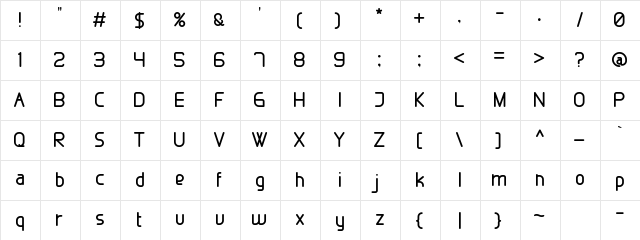
Marlone Regular
| Designer | Empatlay |
Design Context for Marlone Typeface
Marlone takes a measured approach to typography — its balanced proportions and neutral character make it a reliable workhorse for both digital and print work.